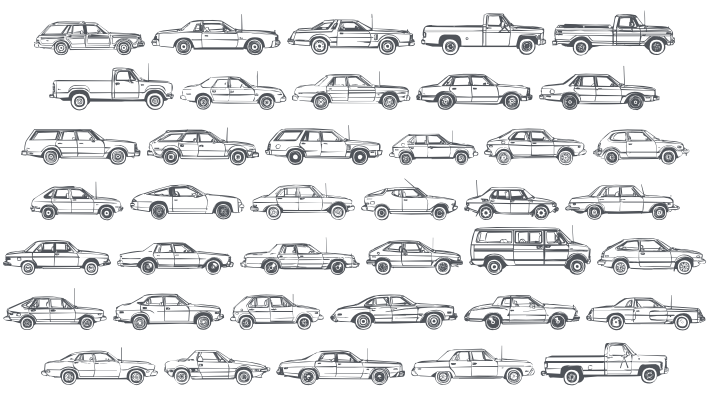
Oil Crisis Font Family
About Oil Crisis
Oil Crisis is a charming dingbat font rather than a text typeface — a collection of meticulously drawn 1970s automobile silhouettes, covering the full range of that era's iconic cars in two files (A and B). Perfect for automotive-themed posters, retro road trip designs, car culture branding, vintage transportation graphics, map icons, and any project needing nostalgic 1970s vehicle illustrations at the press of a key.